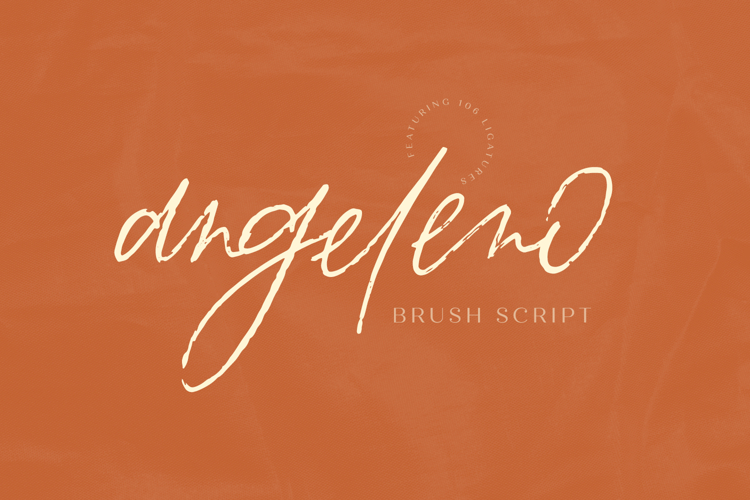
Angeleno Brush Script
Angeleno Brush Script is a heavily textured font - it’s gritty, just like LA, and has an edgy attitude. Angeleno’s main feature is its handwritten, scrawly look & feel — with 35 lowercase alternates and an amazing 106 ligatures, you’ll be able to truly master a signature style in your next project.
Angeleno Brush Script is an excellent fit for:
- logos & branding projects
- clean print design, like magazines & flyers
- header elements + websites needing an edgy, moody touch
Angeleno Brush Script includes:
- 35 lowercase letter alternates
- an astounding 106 ligatures